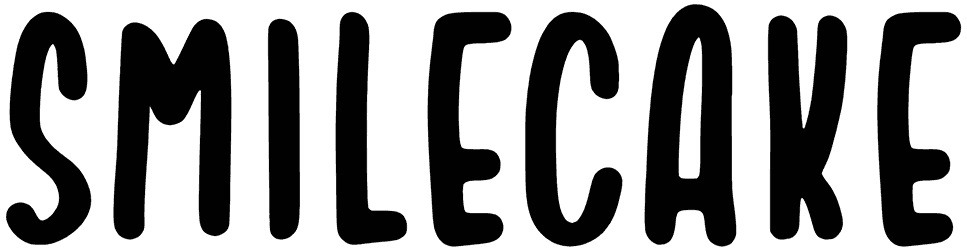
Smilecake Font
This useful handwritten font is a perfect selection for varied designs, from a food truck adornment to a baby shower invitation card. The characters of the Smilecake font are modern and minimal, but lowercase letters are not supported. Let’s use this baby font for your next layout and have a unique and adorable presentation.